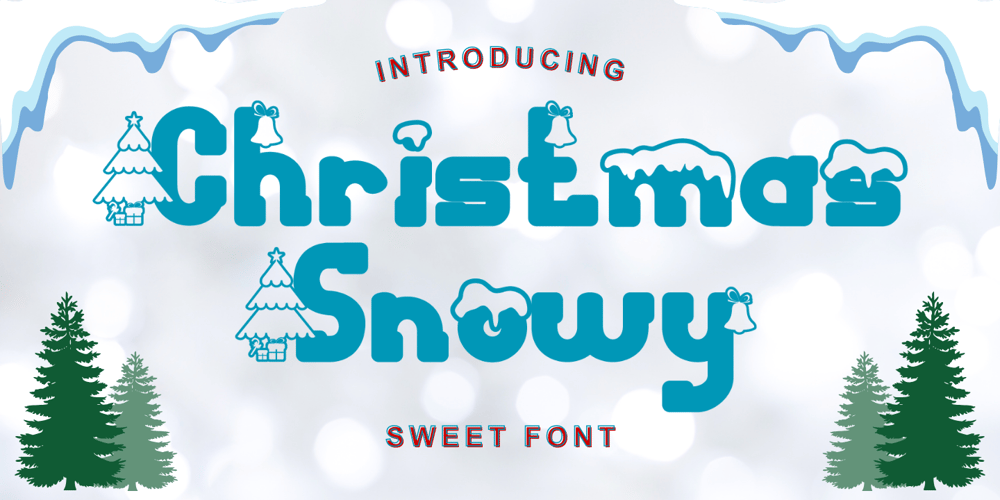
Christmas Snowy Font Family was designed by Stephanus Prabowo and published by Andrey Font Design. Christmas Snowy contains 2 styles and family package options. Christmas Snowy is a charming and festive decorative font. It looks stunning on thank you cards, quotes, Christmas greeting cards, logos, business cards, and every other design that needs a lovely touch. It is also PUA encoded, which means you can access all of the glyphs and ligatures with ease!